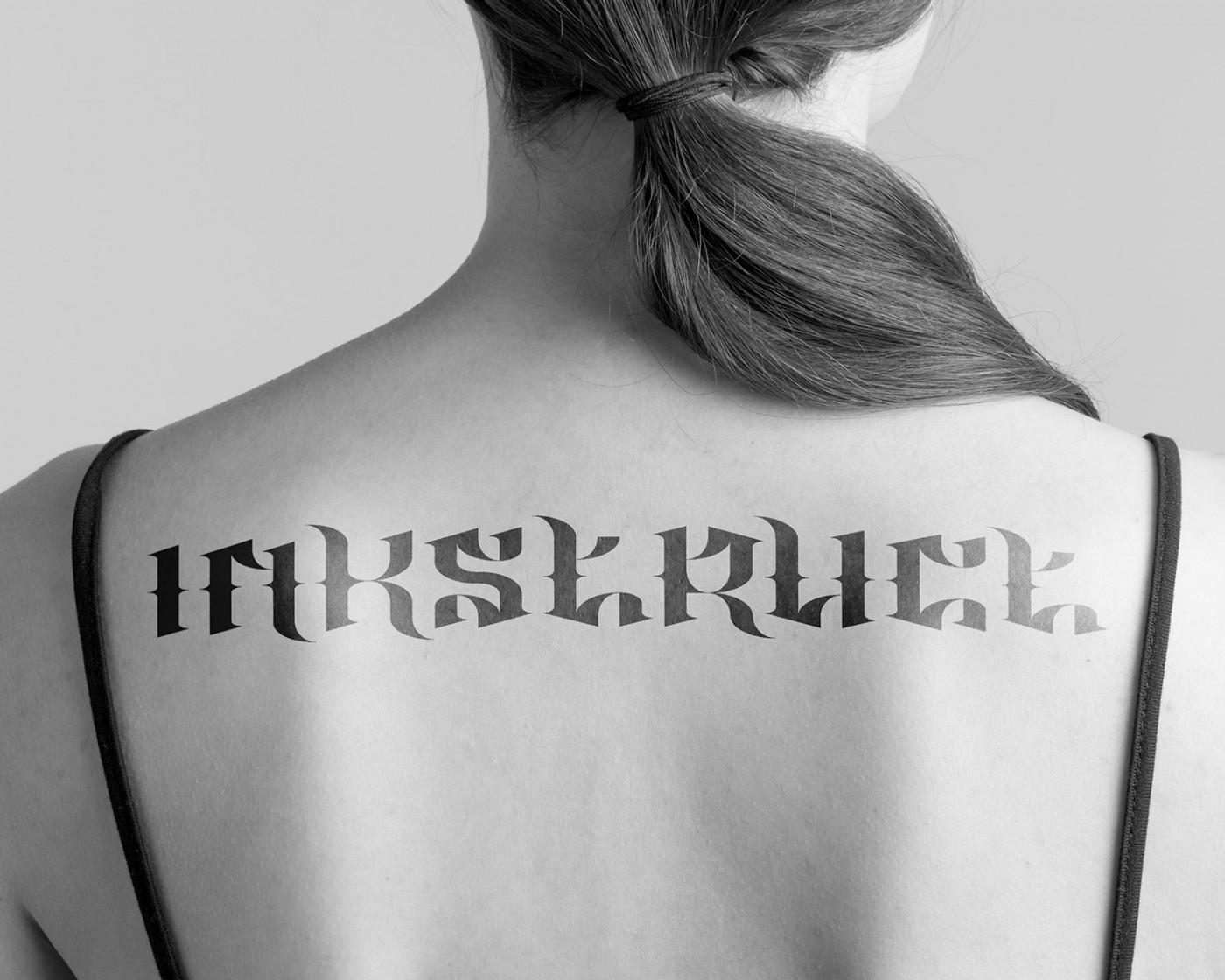
Gothic letters for tattoo artists. I like how your shapes imitate brush strokes. Very impressive. 10/10
I can considerate a tattoo font. Looks good.
Congratulations! FontStruct Staff have deemed your FontStruction worthy of special mention. “InkStruct” is now a Top Pick.
I don't think I could add anything that hasn't already been said—besides me feeling like the "x" is lacking in weight (given all the empty space in the middle)—but that's my personal opinion, and besides that it's flawless.
Thanks for the observation, @Gr4ftY. I'll look at that x again. Maybe I should extend the stroke ends slightly, to fill the space a bit more.